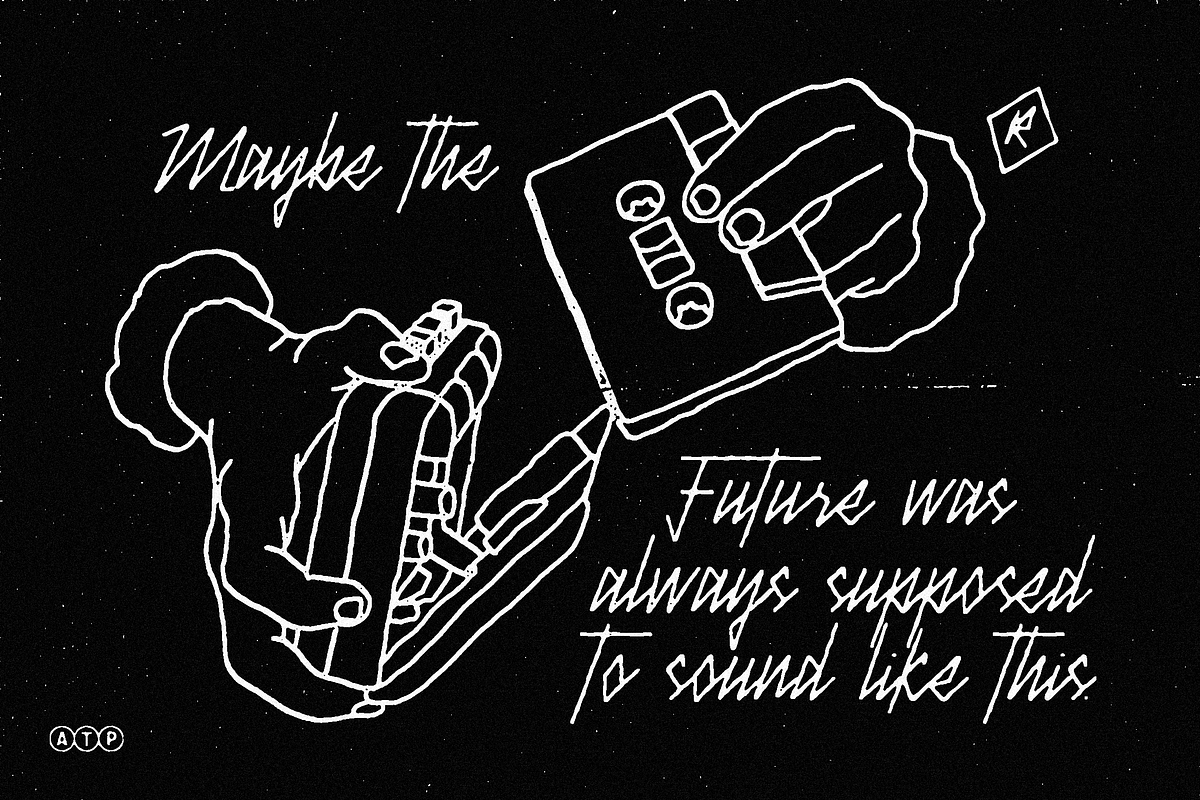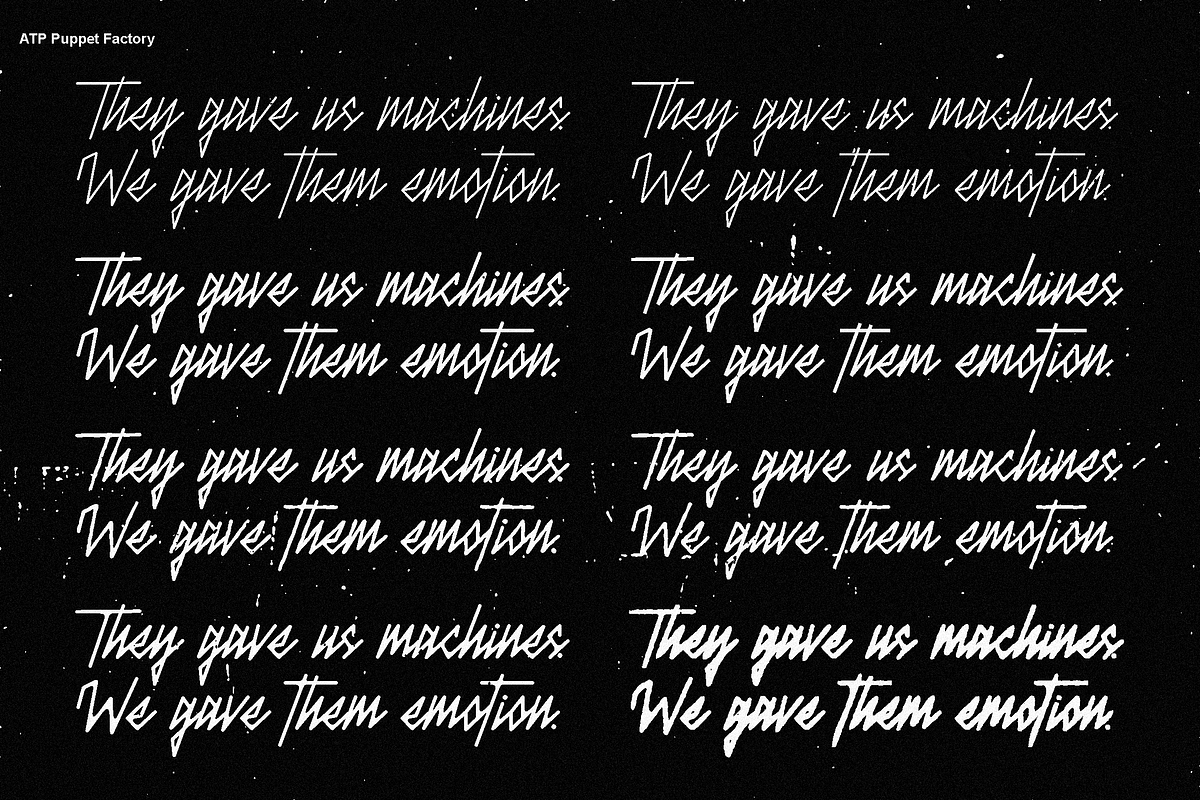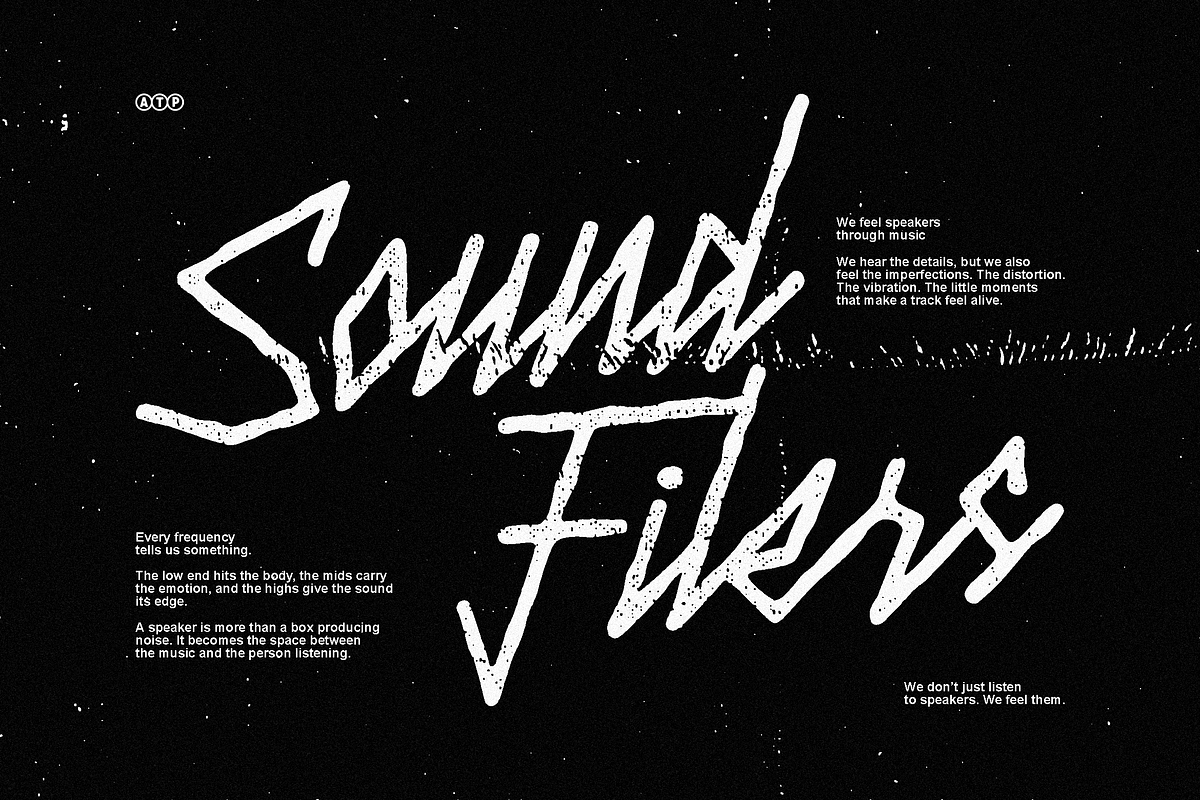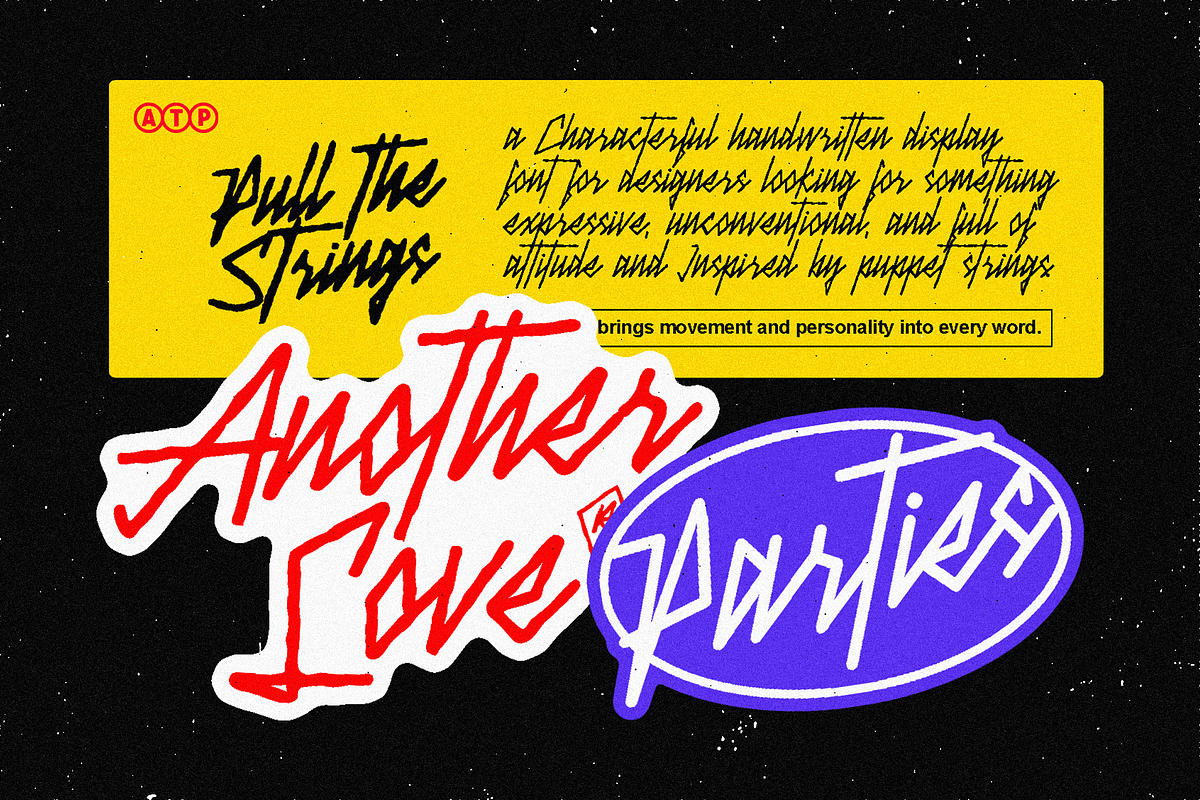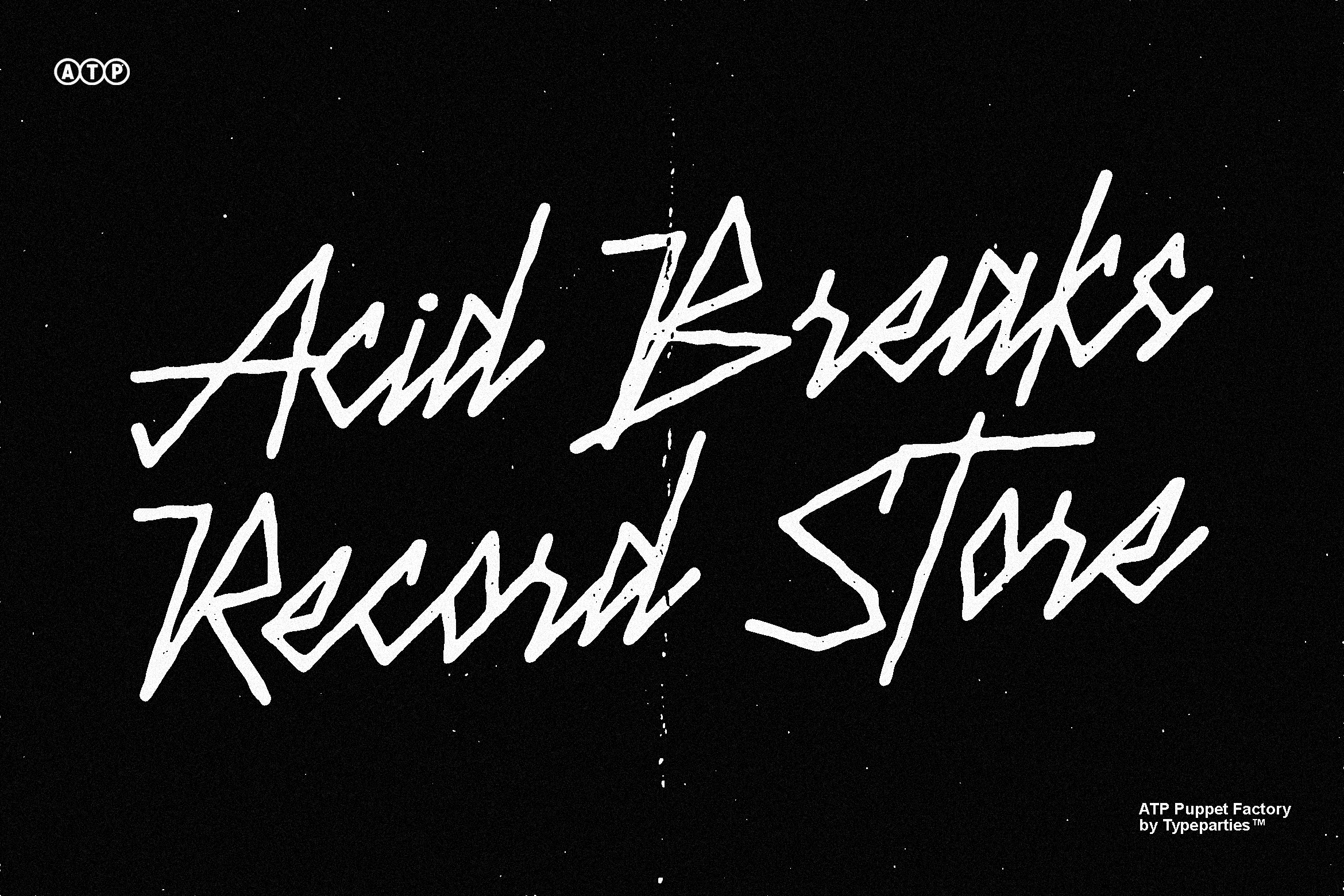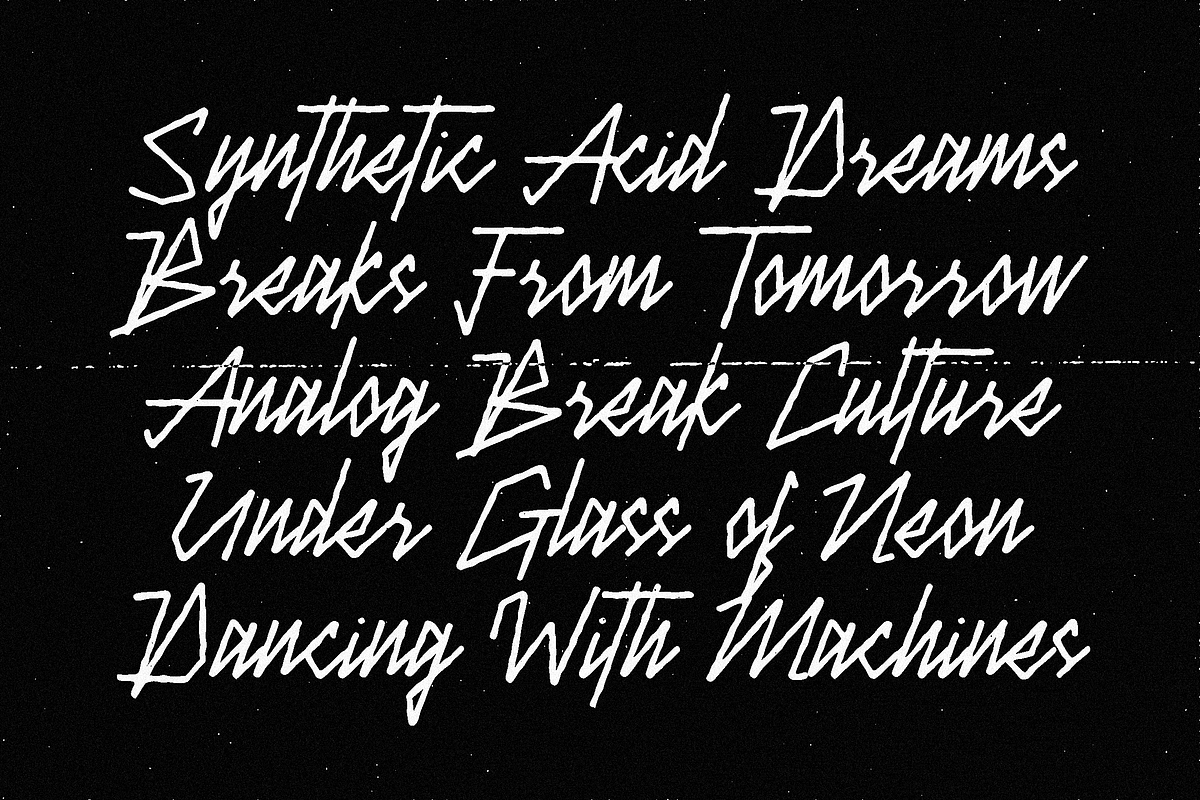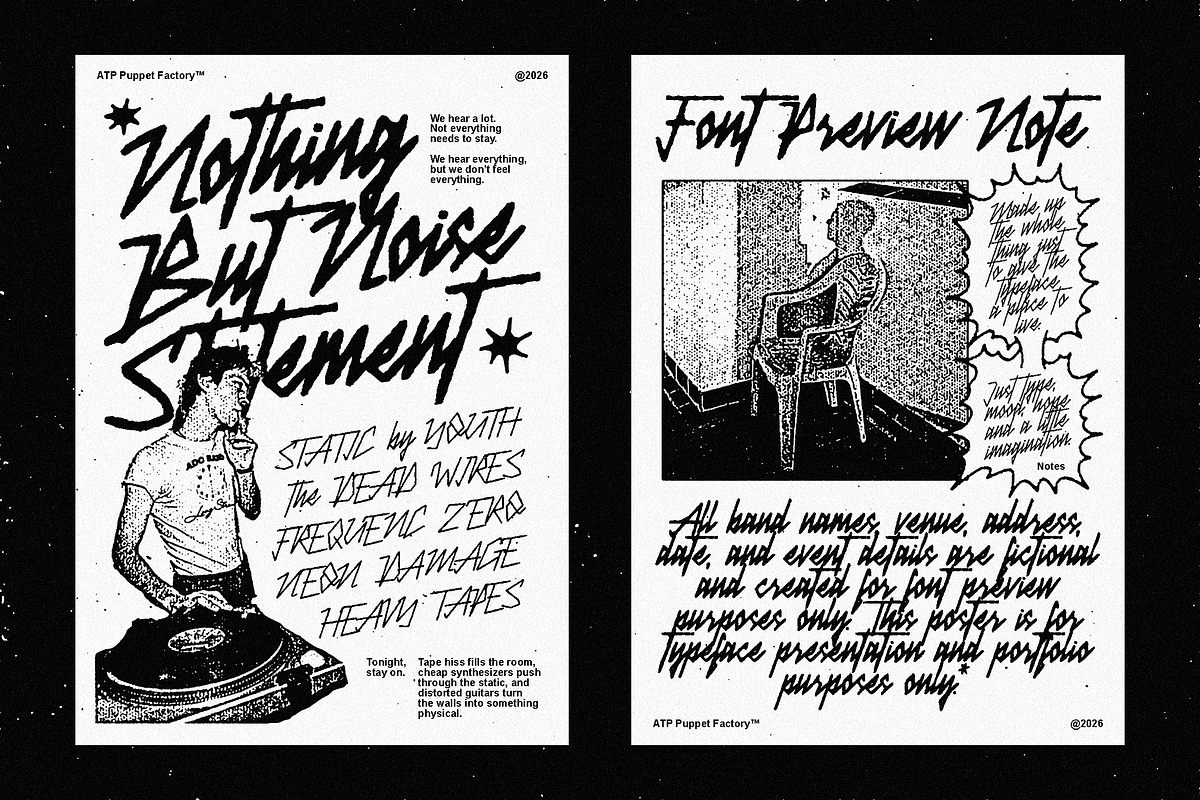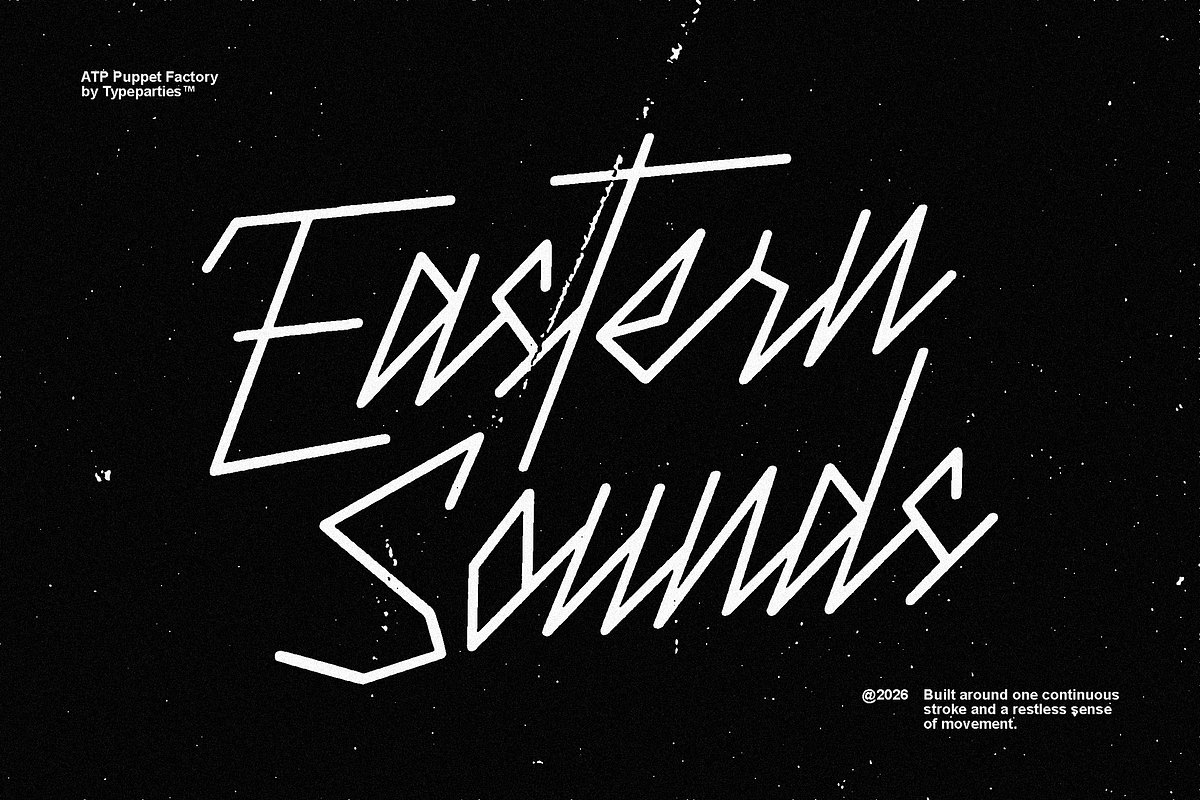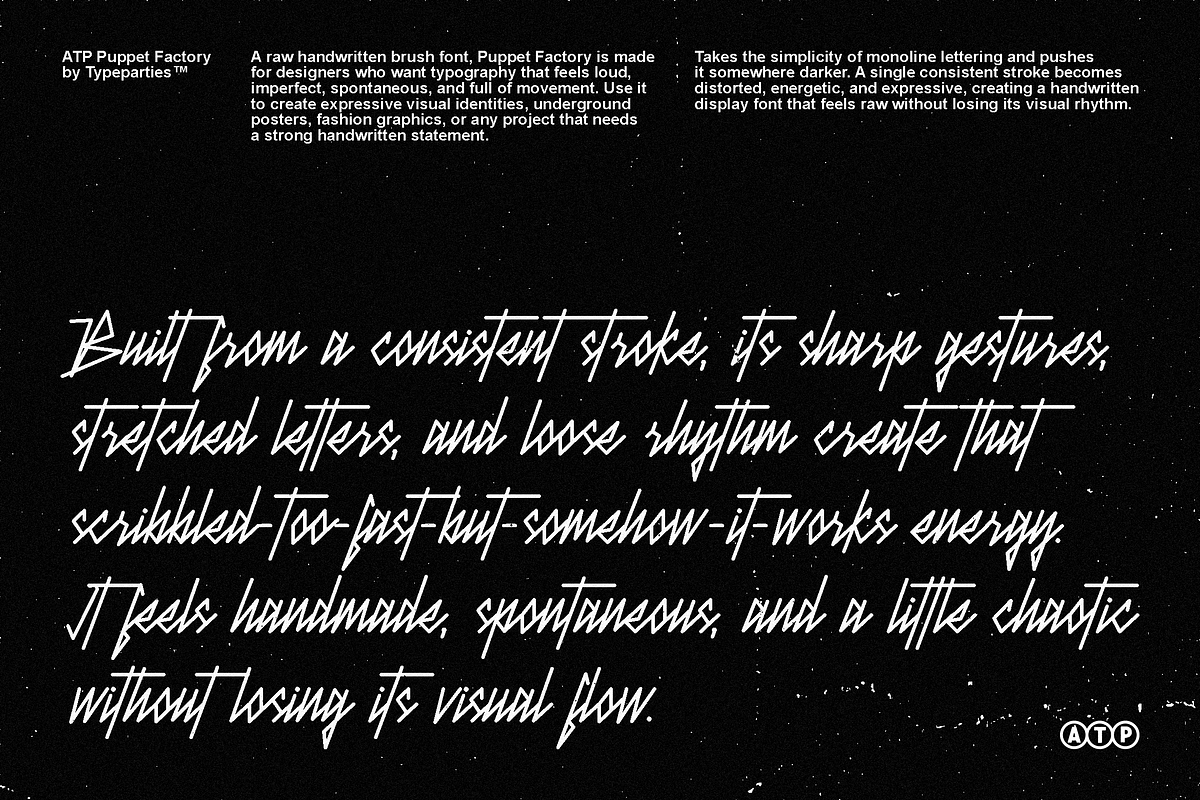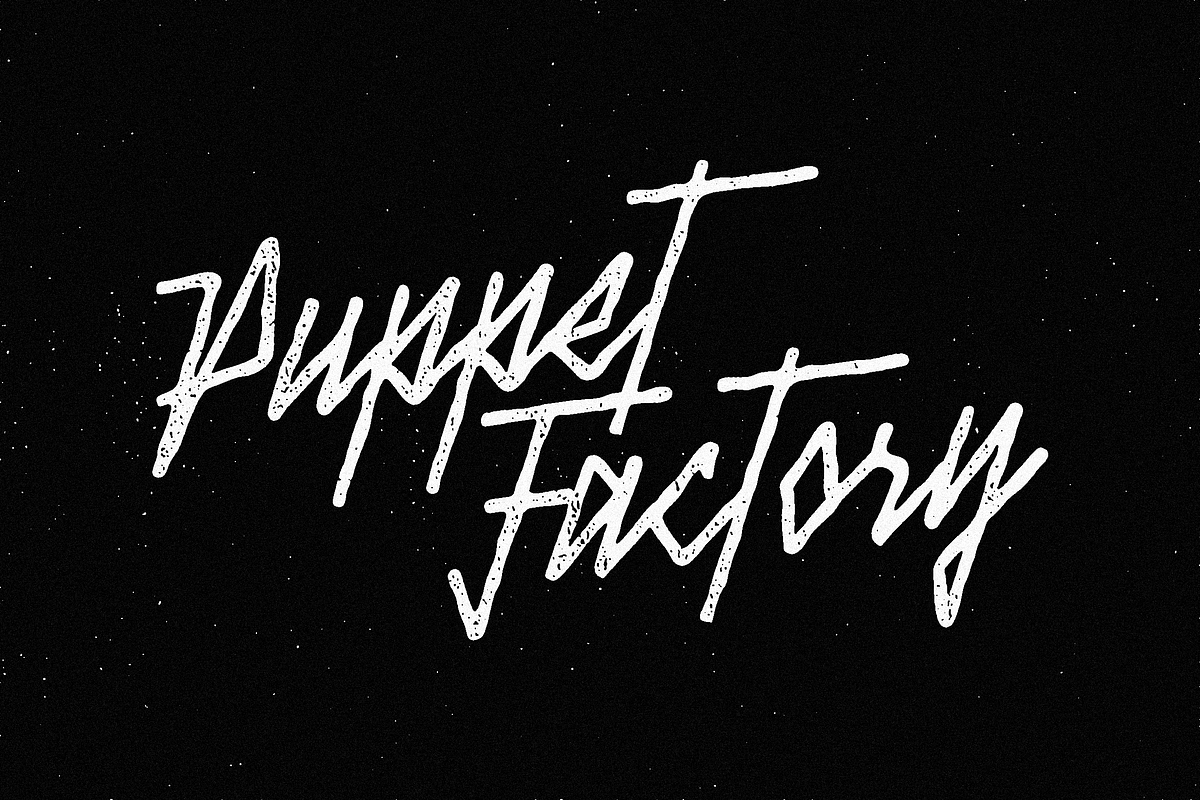
Puppet Factory - Handwritten Font
Puppet Factory is a raw monoline handwritten typeface driven by one continuous visual language. Built with consistent strokes and sharp, spontaneous movements, it turns simple lettering into something restless, expressive, and slightly unpredictable.
The monoline construction keeps the forms clean enough to read while the hand-drawn gestures bring a rough, underground personality. Designed for streetwear, music posters, logos, album artwork, fashion graphics, stickers, packaging, and experimental typography.